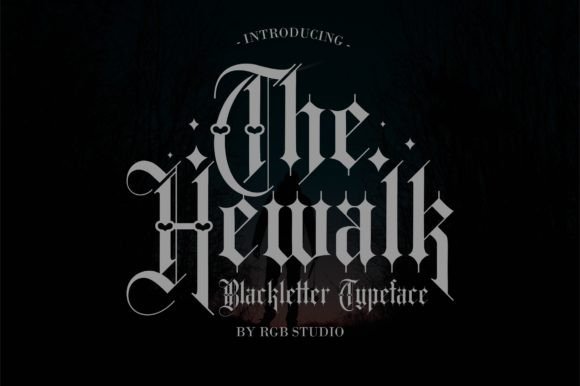
Step into a world of captivating typography with Hewalk, an extraordinary blackletter font that radiates boldness and charisma. Created by the renowned RGB Studio, Hewalk is not just a font; it's an artistic masterpiece that will transform your designs into visually striking creations.
With its meticulously crafted glyphs, Hewalk commands attention, leaving an unforgettable impression on your audience. Its strong and confident strokes exude a sense of power and determination, making it the perfect choice for projects that demand a bold statement.
Imagine the impact of your product packaging adorned with Hewalk's striking characters. Your brand will radiate an aura of authority and distinction, attracting customers like moths to a flame. Or envision your branding materials infused with Hewalk's bold personality - your message will cut through the noise, leaving a lasting imprint on the minds of your target audience.
And if you're a tattoo enthusiast seeking a font that will make your body art stand out, look no further. Hewalk is the ultimate choice for number tattoos, its unique design ensuring that your ink will turn heads wherever you go. Its sharp, clean lines will immortalize your chosen digits with a touch of elegance and individuality.